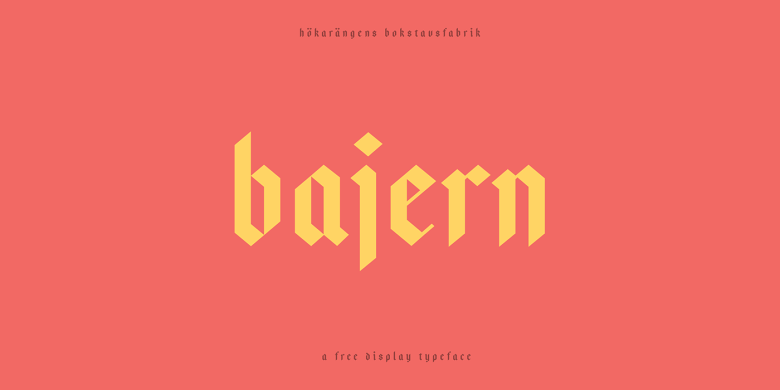
Bajern Typeface
A typeface inspired by German frakturs with a twist of Sweden. It’s like german engineering combined with allemansrätt. Like oktoberfest combined with smörgåsbord. Yeah you get it. Enjoy the free typeface!